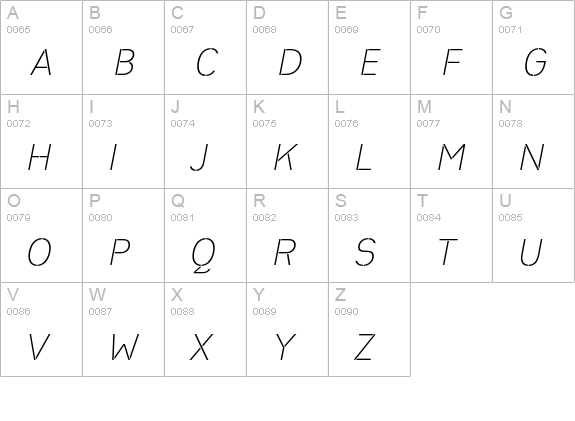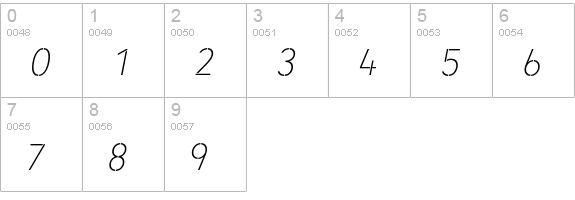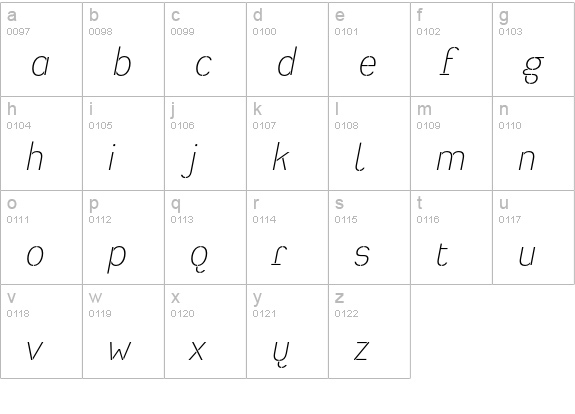
Heimat Stencil ExtraLight Italic Font Details
Heimat Stencil ExtraLight Italic is an airy, ultra-refined, italic variant in the Heimat typeface family \xE2\x80\x94 well suited to minimalist headlines and refined display use.
Heimat Stencil ExtraLight Italic font is a sleek and modern typeface that exudes sophistication and contemporary elegance. Its delicate strokes and subtle curves make it perfect for adding a touch of refinement to any design project. This font strikes a perfect balance between being stylish and easily readable, making it versatile for a wide range of applications. The italic style of Heimat Stencil ExtraLight adds a touch of dynamism and movement to the text, making it ideal for conveying a sense of energy and creativity. Whether used for headings, captions, or body text, this font is sure to make a statement and capture the attention of your audience. The best part is that Heimat Stencil ExtraLight Italic font is available for free download at FontsMarket.com. You can easily access this elegant typeface and incorporate it into your projects without any cost. Don't miss out on the opportunity to enhance your designs with the beauty and sophistication of Heimat Stencil ExtraLight Italic font today!